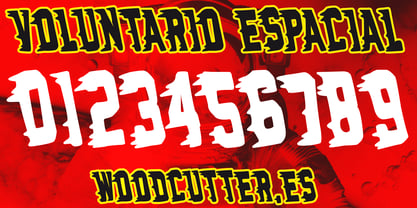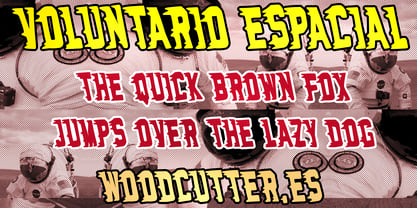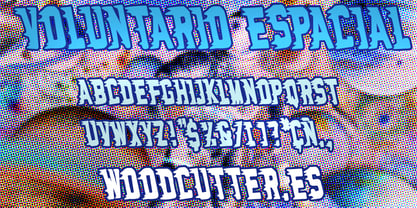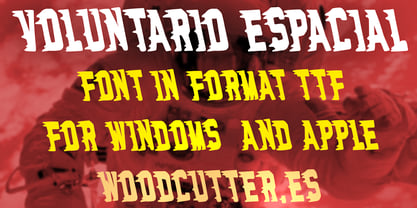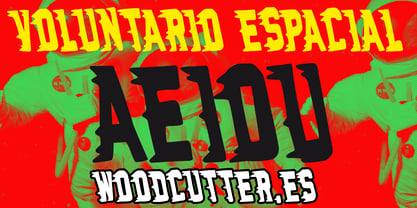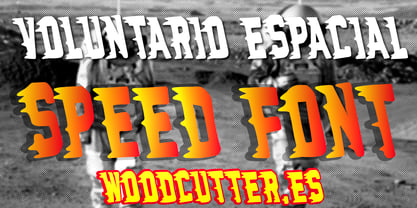
Voluntario Espacial
by Woodcutter
The Voluntario Espacial Font Family was designed by Jordi Manero and published by Woodcutter. Voluntario Espacial contains 1 styles. More about this family
“Voluntario Espacial” is an uppercase typeface that captures the essence of motion and speed. Its letters are slanted to the left, as if propelled by a dynamic force or a journey through space. This unique design conveys energy and modernity, evoking a futuristic aesthetic perfect for projects related to science fiction, technology, or adventure. The letterforms are solid and stylized, adding a bold and contemporary touch. Ideal for logos, headlines, or posters, “Voluntario Espacial” is a striking choice for designs aiming to convey action and constant progress.